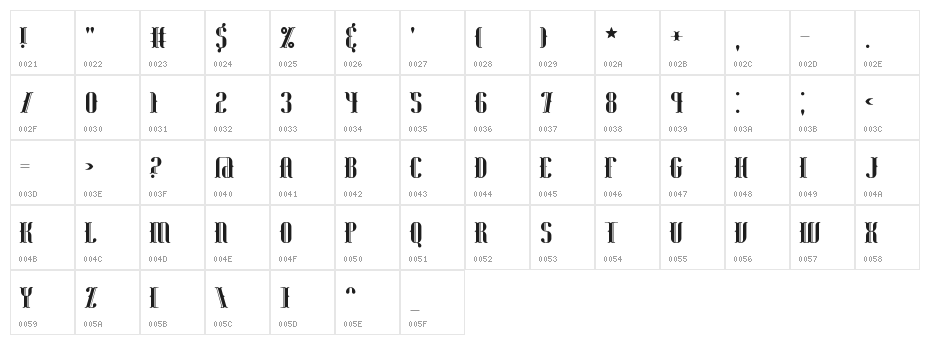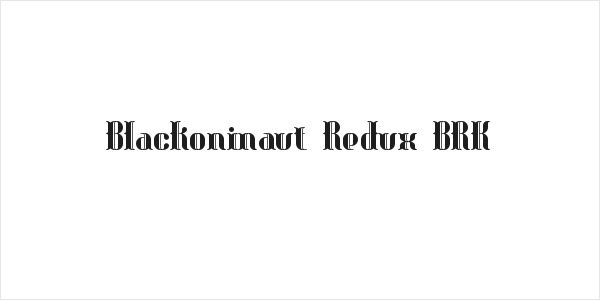
Blackoninaut Redux BRK Font
Blackoninaut Redux BRK Description
This font exhibits a bold and striking blackletter style, characterized by its dramatic and angular letterforms. The uppercase letters are tall and imposing, with sharp serifs and intricate detailing that evoke a sense of historical elegance. The lowercase letters maintain a consistent style, featuring similar angularity and decorative elements. The numerals are equally bold, with a uniform height that complements the overall aesthetic. Special characters are designed with the same attention to detail, ensuring a cohesive look across all glyphs. This font's unique style is reminiscent of medieval script, making it ideal for projects that require a touch of vintage or gothic flair.
| Proposed Projects | Ideal for vintage-themed designs, gothic posters, book covers, and branding that requires a historical or dramatic touch. |